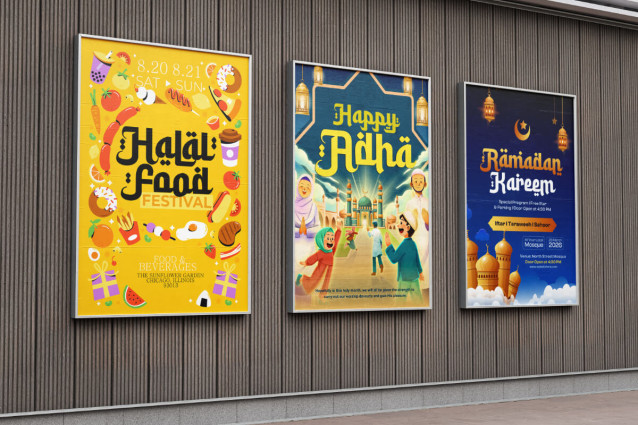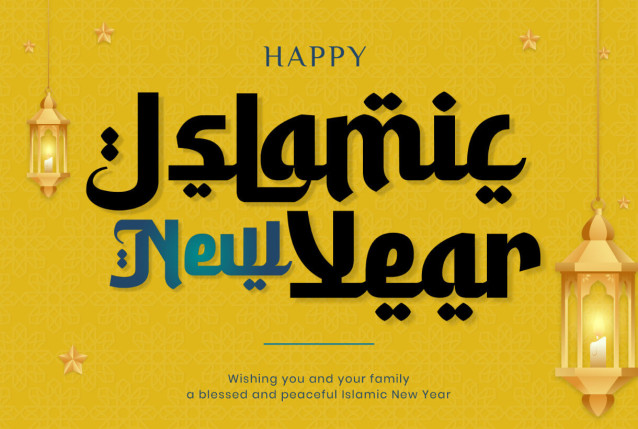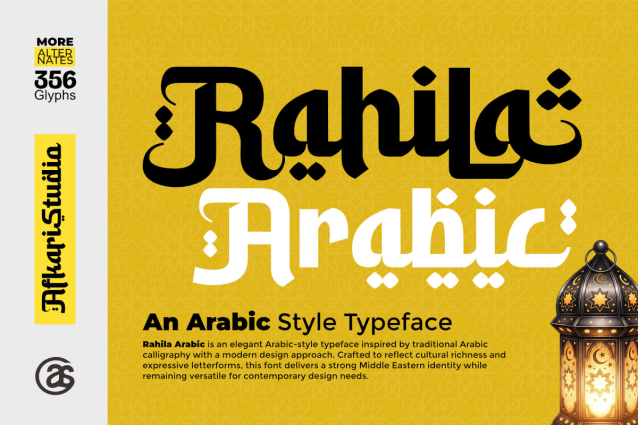
Rahila Arabic – An Arabic Style Typeface Font
Rahila Arabic is an elegant Arabic-style typeface inspired by the beauty and character of traditional Arabic calligraphy. Designed with expressive letterforms and cultural depth, this font brings a strong Middle Eastern identity while remaining versatile for modern design applications.